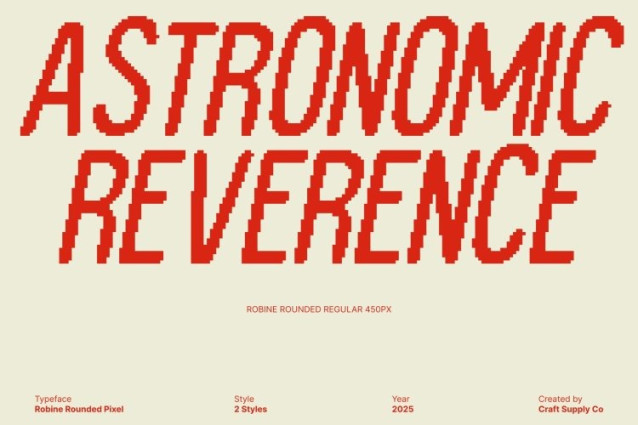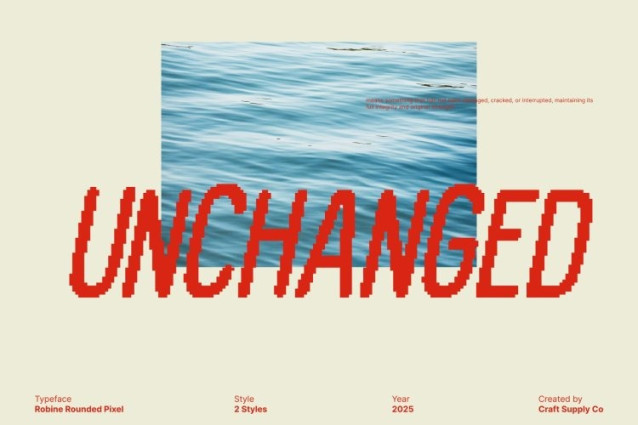
Robine Rounded Pixel Font
Robine Rounded Pixel Font The brings a unmistakable charm of the 90s digital era into a fresh, modern sans serif form. This font blends pixelated detailing with smooth rounded shapes, creating a distinctive look that evokes classic video games while still feeling clean and contemporary. Its nostalgic aesthetic makes it instantly eye-catching, while the rounded design softens the pixel structure for a more accessible, versatile appearance.
Condensed Form for Strong, Efficient Layouts
With its condensed construction, this font delivers high visual impact while maximizing layout space. The compact letterforms allow designers to fit more text into tight compositions without sacrificing clarity or style. This makes the font incredibly effective for posters, banners, headlines, and UI elements where visual economy is key.
Modern Sans Serif Versatility
Despite its retro foundation, this font is designed for modern flexibility. Its clean sans serif base gives it professional readability, making it suitable for both playful and polished design directions. Whether you’re creating branding, social media graphics, promotional materials, or digital interfaces, this font adapts seamlessly to contemporary design needs.
Perfect for Creative Digital Projects
This font truly shines in digital-forward projects that demand personality and nostalgia. It’s an excellent choice for game titles, app interfaces, pixel art, posters, merchandise, and retro-inspired branding. The fusion of pixel aesthetics and rounded forms creates a charming visual rhythm, making every word stand out with energy and style.